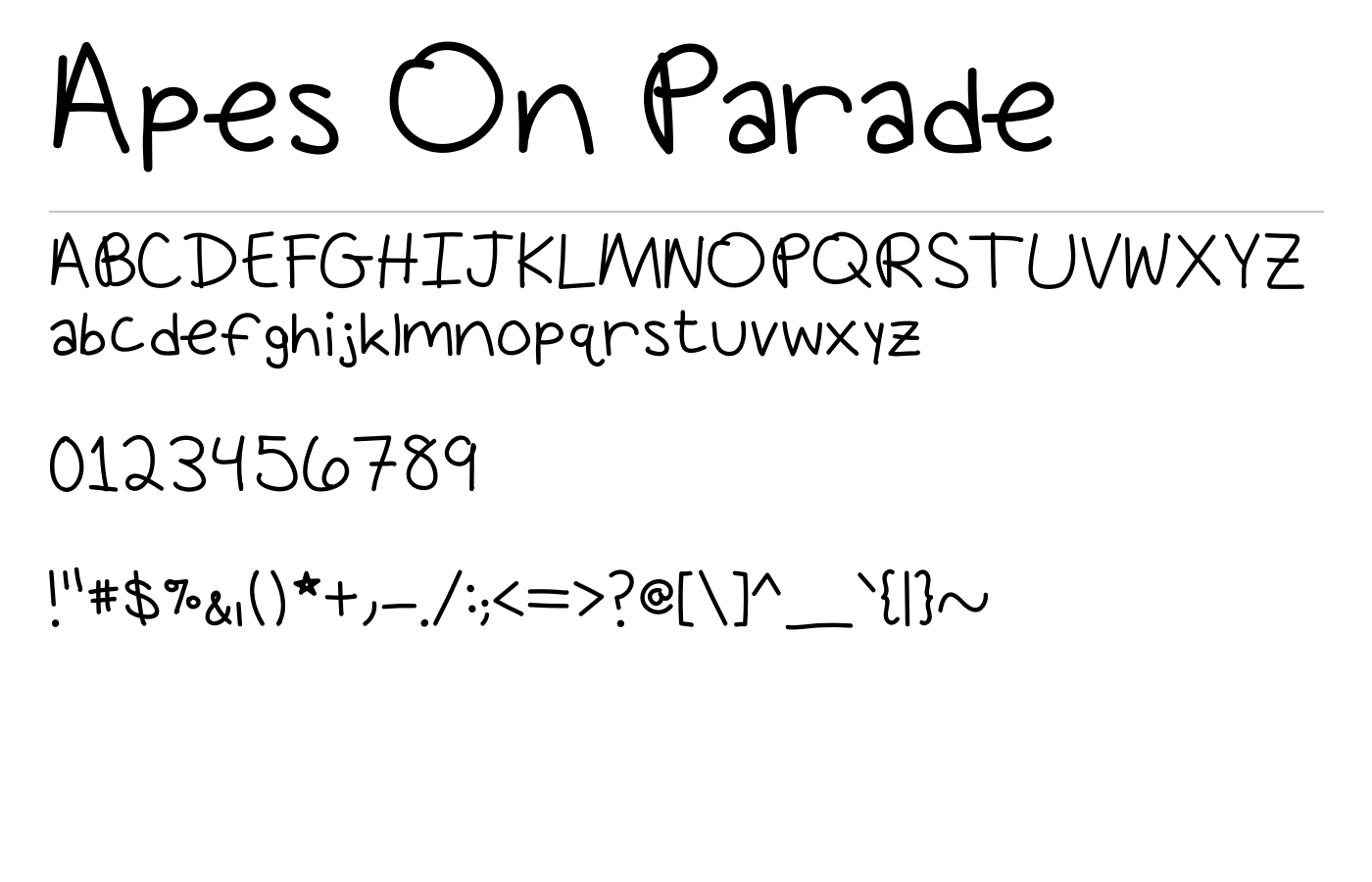
Apes On Parade is a playful, informal sans serif font with a hand-drawn, whimsical charm. Its light weight and airy spacing give it a friendly and approachable feel, perfect for casual designs, children’s materials, or creative projects that want to convey fun and spontaneity. This font works well for headlines, invitations, and branding where a personal, lighthearted touch is desired.
Apes On Parade Font
About Apes On Parade Font